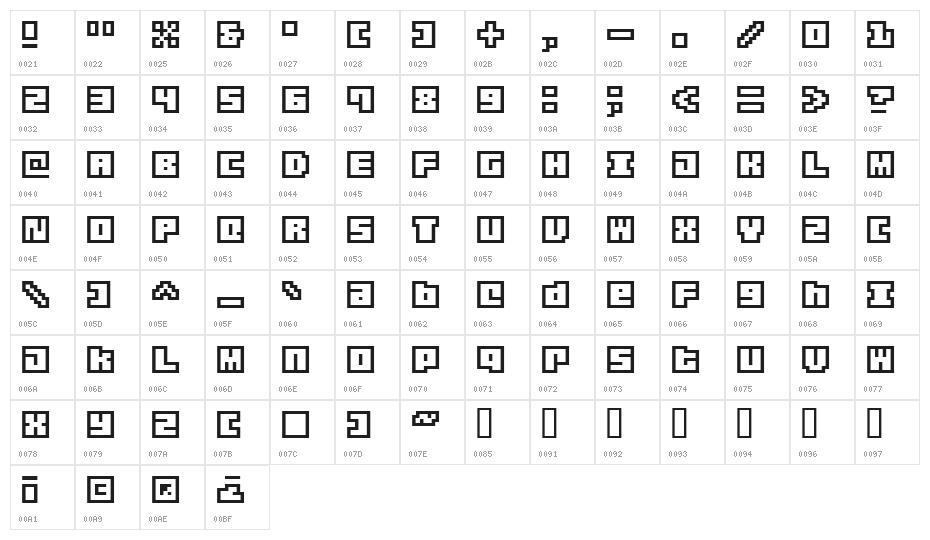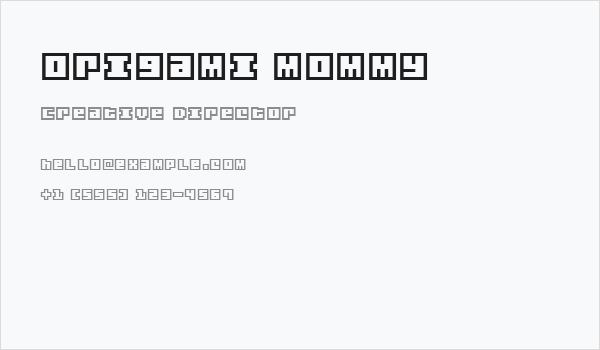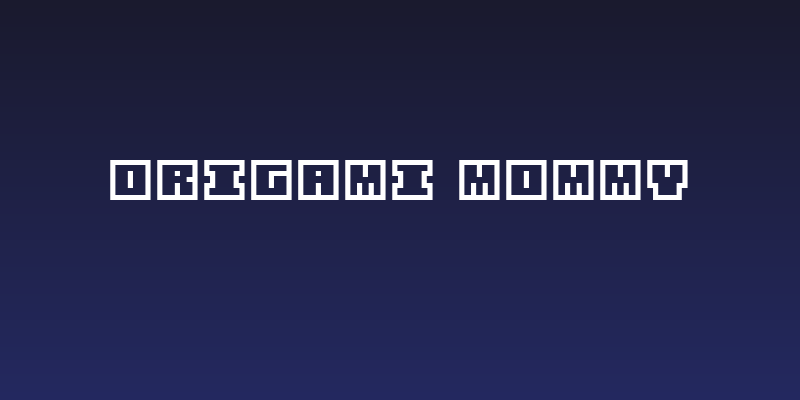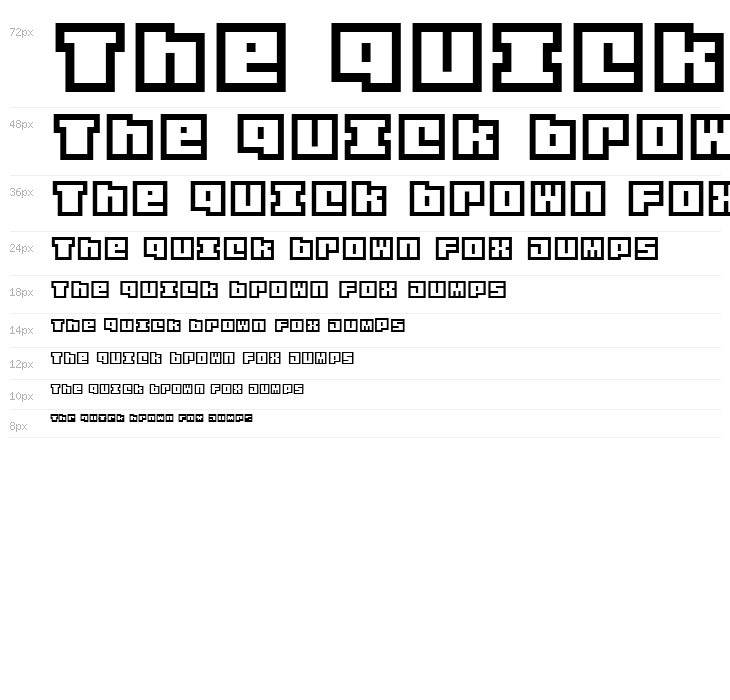
Origami Mommy Font
Origami Mommy Description
This font features a bold, geometric design with a pixelated, blocky appearance. Each character is constructed with uniform thickness, creating a cohesive and structured look. The font is reminiscent of retro digital displays or early video game graphics, with a strong emphasis on straight lines and right angles. The uppercase and lowercase letters maintain a consistent style, while the numbers and special characters complement the overall aesthetic. The font's distinct style makes it ideal for projects that require a vintage or tech-inspired theme.
| Overall Style | Retro, Geometric |
| Proposed Projects | Ideal for video game graphics, tech-themed posters, retro digital displays, and creative branding projects. |